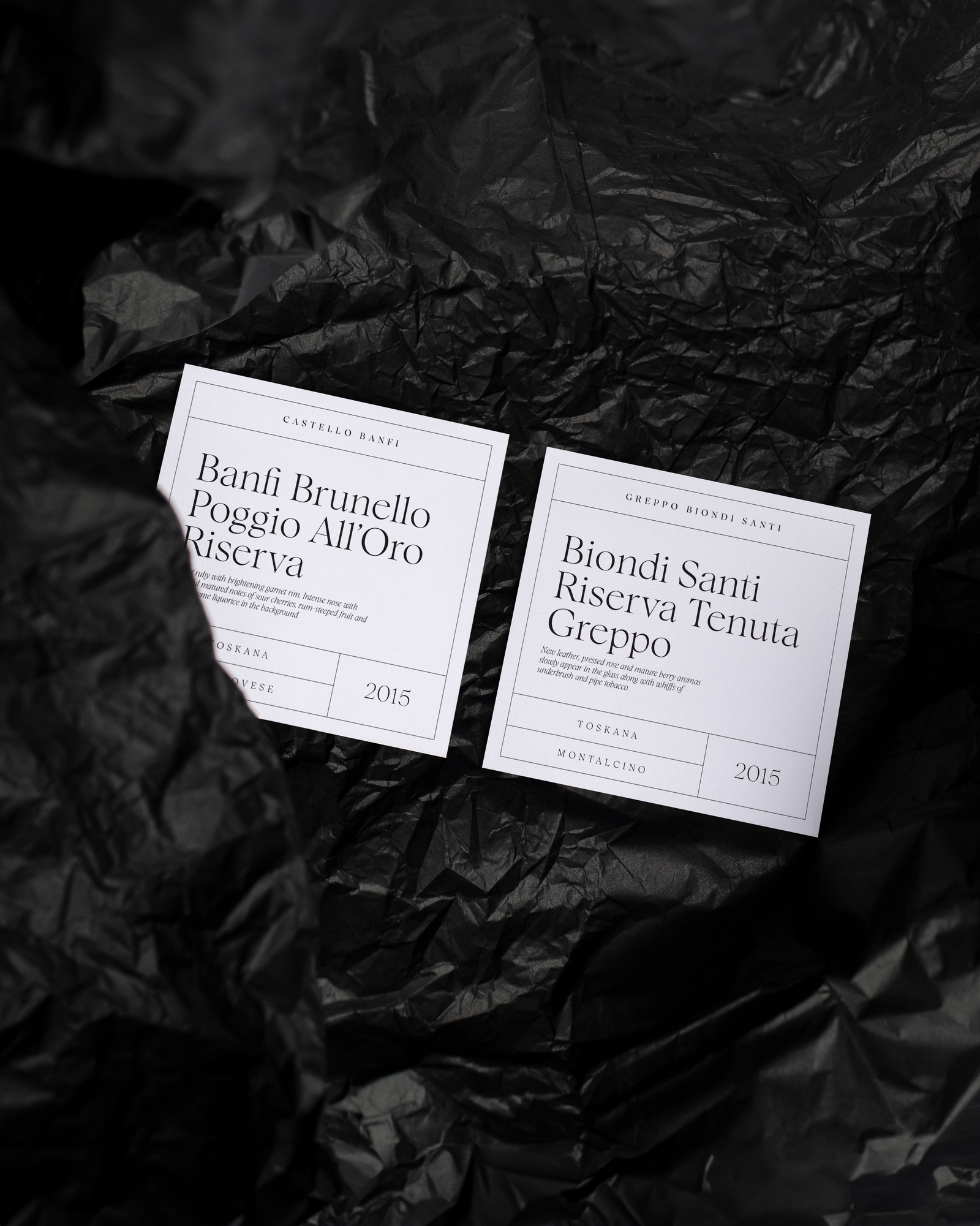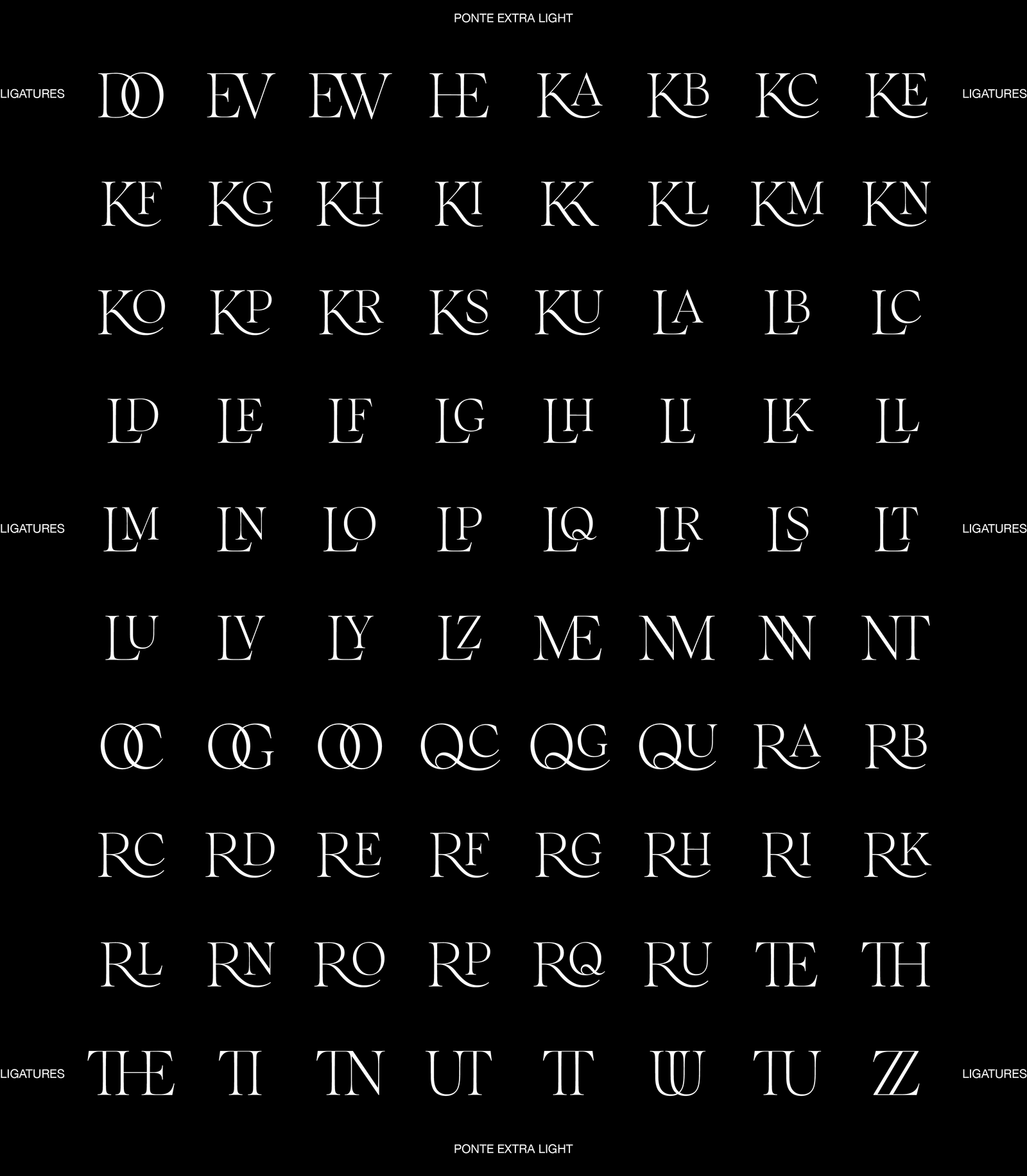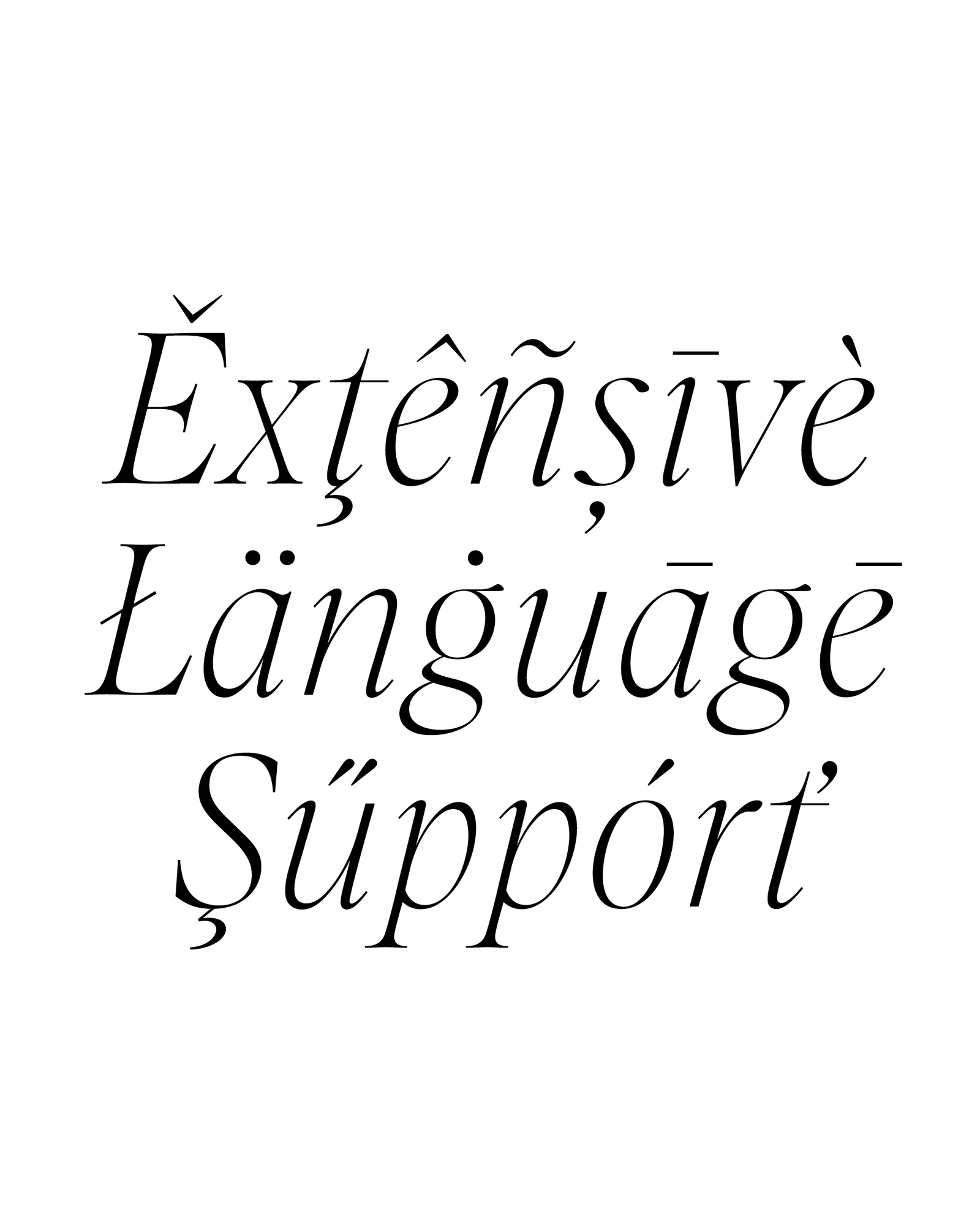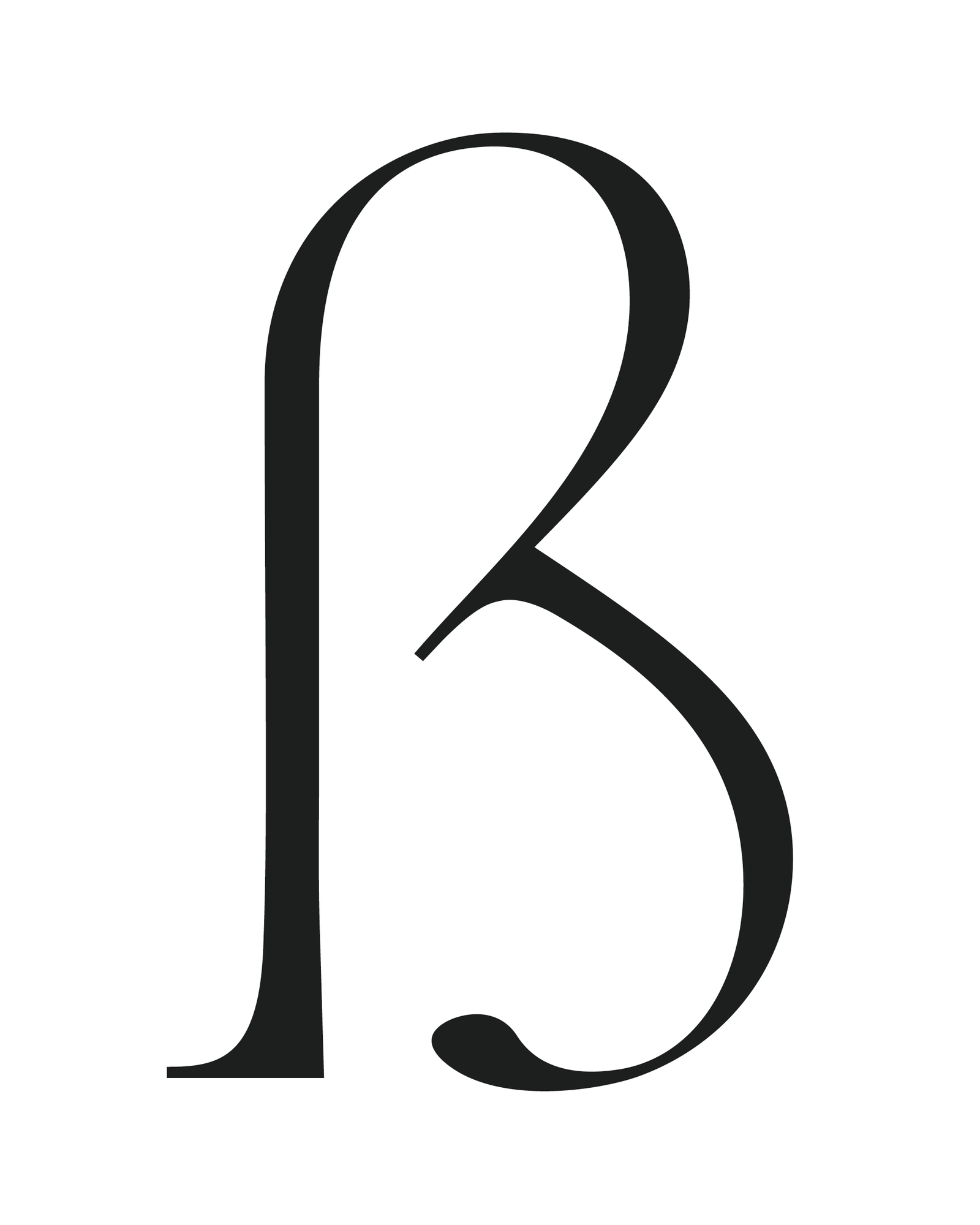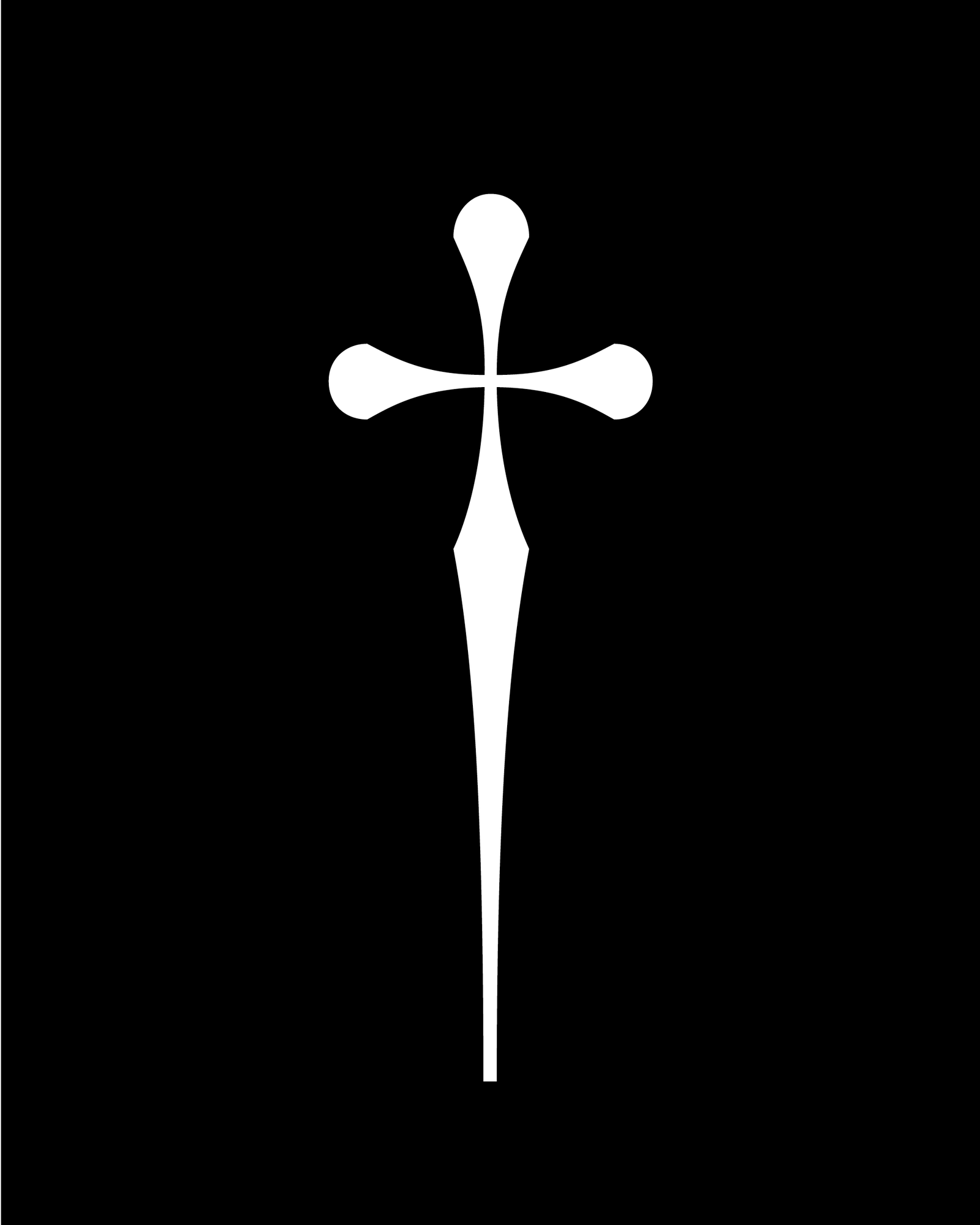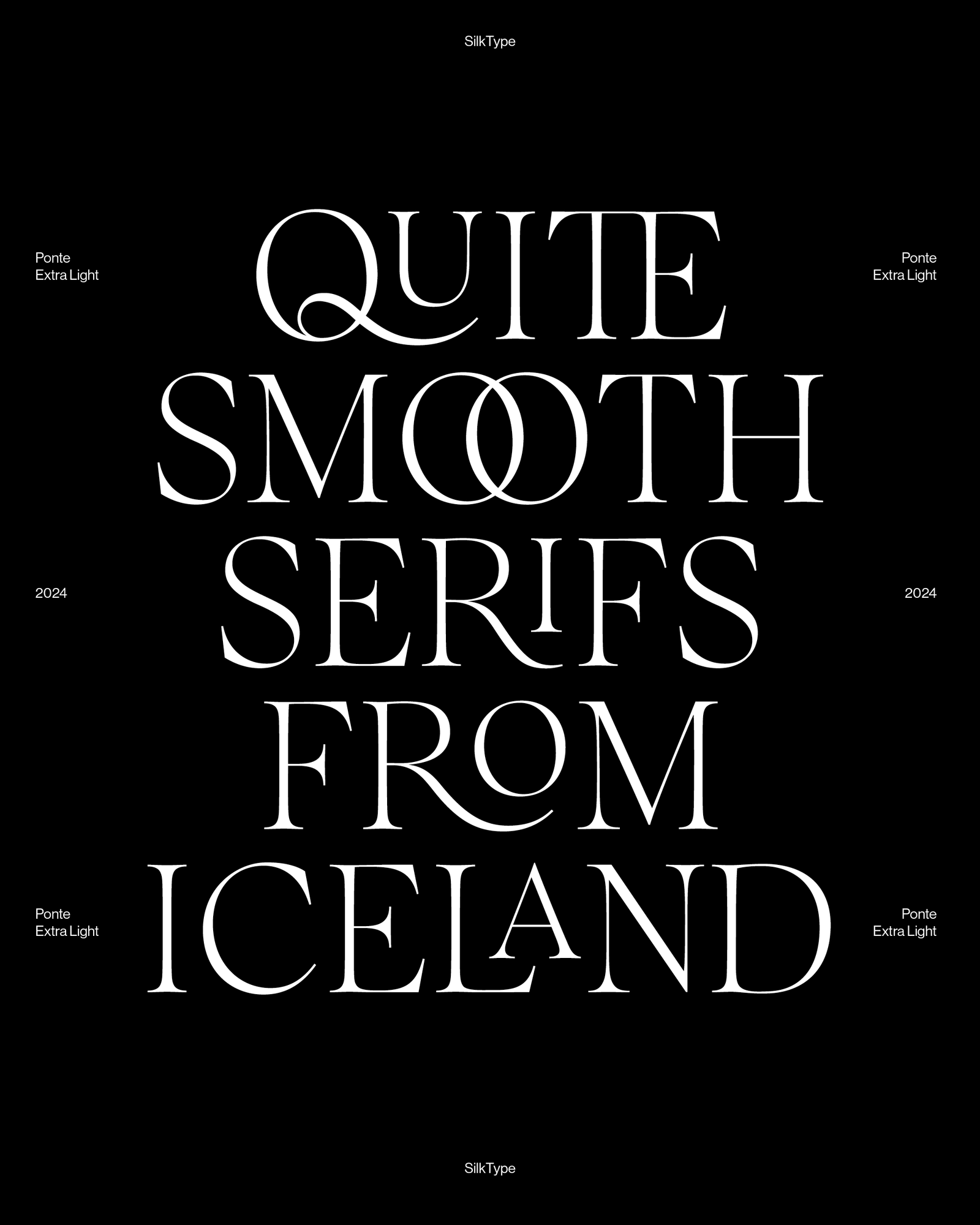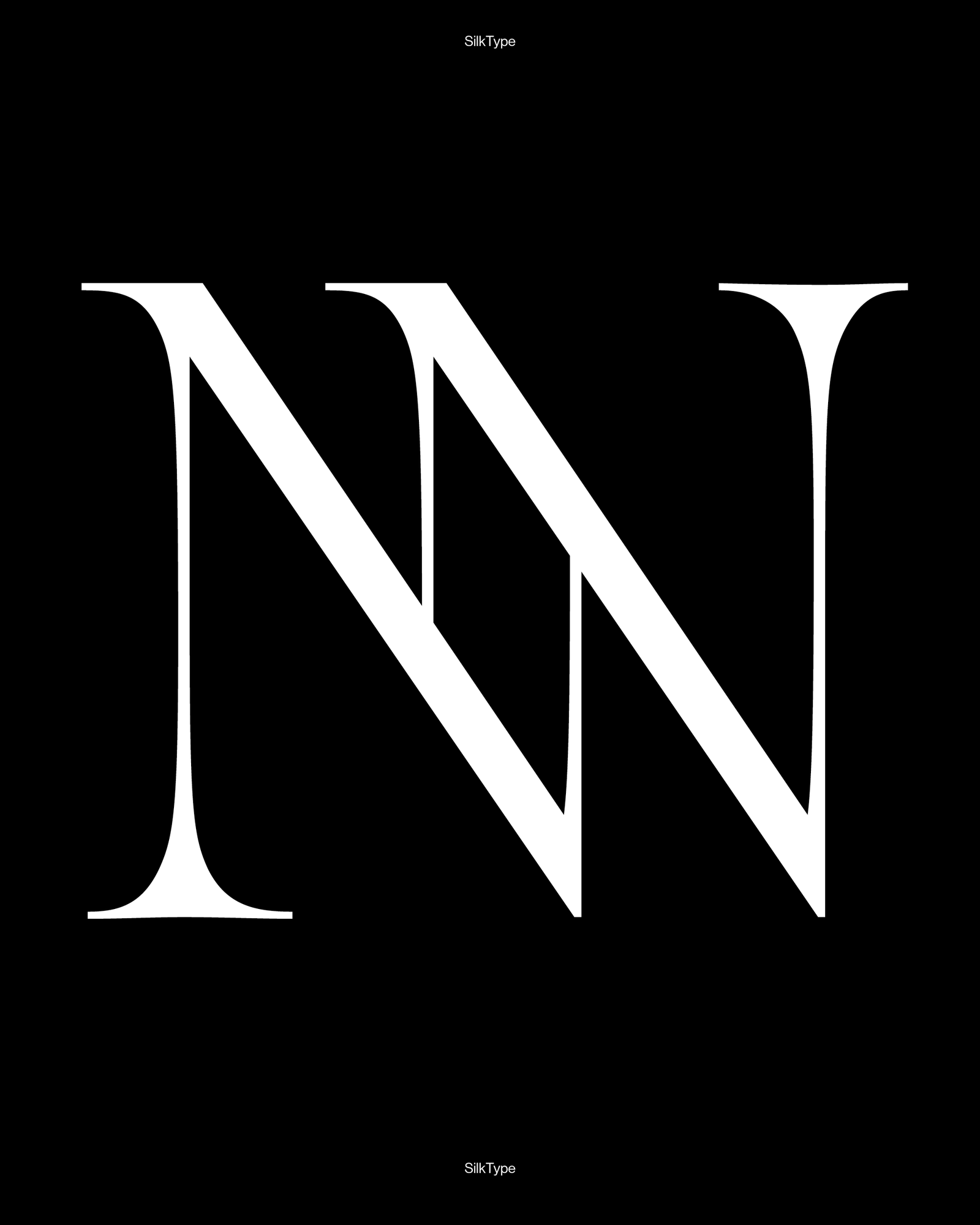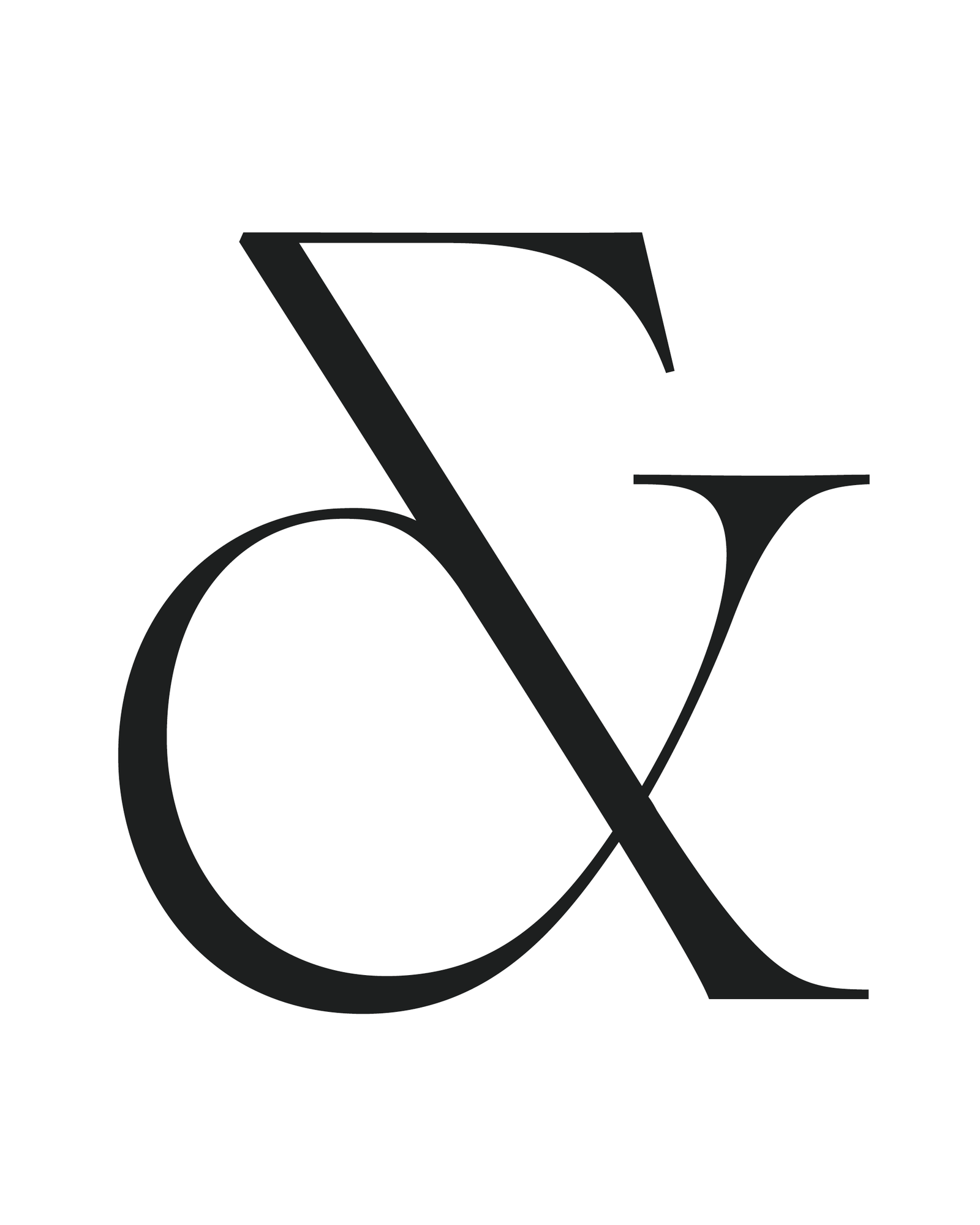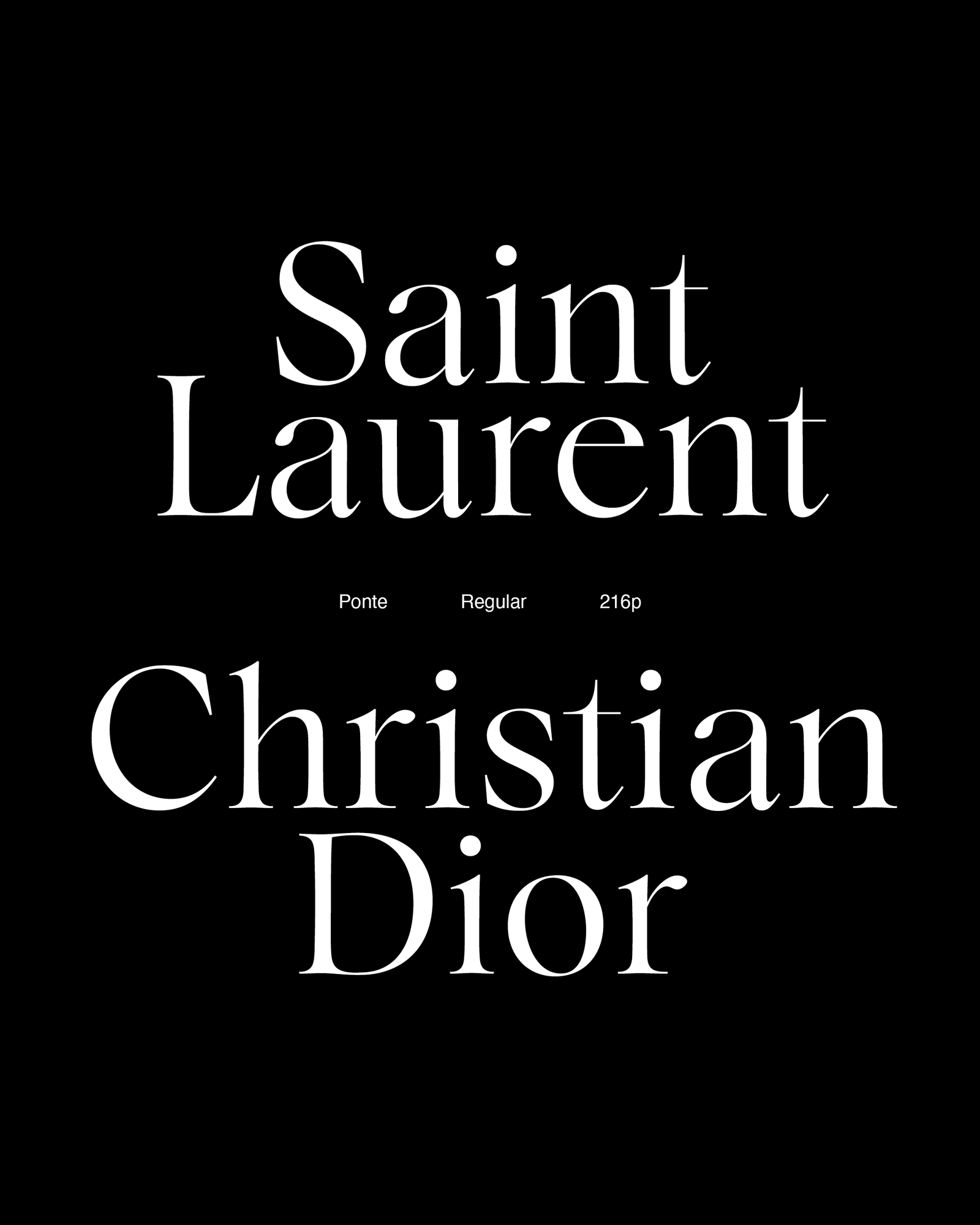
Ponte
• EXTRA LIGHT
• LIGHT
• REGULAR
• MEDIUM
• BOLD
• EXTRA LIGHT ITALIC
• LIGHT ITALIC
• REGULAR ITALIC
• MEDIUM ITALIC
• BOLD ITALIC
ABOUT
Ponte is a high-contrast display typeface with smooth serifs, designed for impactful headlines. The ten-style typeface features over 80 decorative ligatures, with roman and italics available in five weights, ranging from extra light to bold. This offers a variety of options for sophisticated design applications.
DESIGNER
Rakel Tómasdóttir
STYLES
14
LIGATURES
Over 80
LANGUAGE SUPPORT
Western, Central and South Eastern European, South American, Oceanian